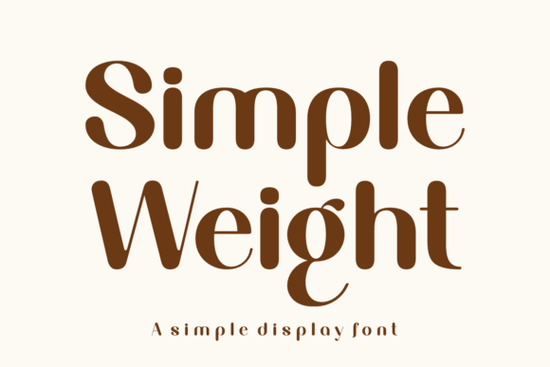
Finding the right typography for your creative projects often feels like searching for a needle in a haystack. You need something versatile that works across different mediums without losing its charm. The Simple Weight Font collection aims to solve this by offering a diverse bundle suitable for various design needs. Whether you are making school-themed handouts or summer sale graphics, having a range of styles in one package saves time and keeps your branding consistent.
This bundle includes everything from playful and quirky options perfect for birthday invites to lighthearted aesthetics that add a cheerful tone. It also covers festive occasions with exhilarating greetings typography. For those involved in print-on-demand, the inclusion of exclusive t-shirt crafting and sticker fonts is particularly useful for sublimation applications. This distinct font bundle provides top-tier solutions for personal and craft-related projects, boasting endearing types to mirror your unique style perfectly.
What kinds of projects work best with this bundle?
The versatility of this collection means you can apply it to a wide array of physical and digital products. Sublimation projects, such as mugs and tumblers, benefit from bold, readable types that survive the heat press process. Sticker designs require clean lines that cut well, and this pack offers options tailored for that purpose. If you are creating invitations for weddings or parties, the celebratory styles included here can set the right mood immediately.
For designers looking to expand their library with similar display options, exploring other collections can provide fresh inspiration. You might consider browsing a bold display alternative if you need something with more weight for headlines. Alternatively, if your project requires a specific thematic element, such as a themed typography style, you can find specialized sets that complement the versatile nature of this main bundle. Mixing these different styles allows you to create hierarchy in your designs without clashing.
How do you choose the right typeface for invitations?
Selecting typography for invitations depends heavily on the event's tone. A formal gala requires something elegant and restrained, while a child's birthday party calls for something fun and bubbly. The Simple Weight collection covers both ends of this spectrum. When pairing fonts, ensure there is enough contrast between the header and the body text. Legibility is key, especially for older guests or small print sizes.
Sometimes, you might need a quirky touch to make your stationery stand out. In those cases, looking at a playful design option can help you gauge how much personality to inject into your layout. It is also important to test your printouts before committing to a full run. Colors and paper textures can change how the ink sits on the page, affecting the final look of the letters.